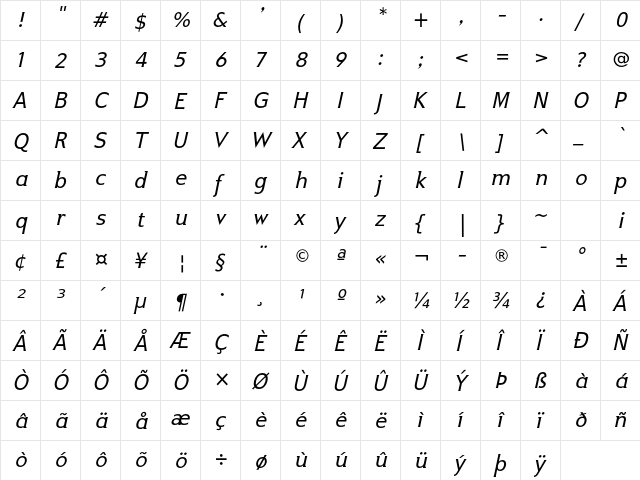
Ikarius ADF No2 Std Italic
| Foundry | Arkandis Digital Foundry. |
| Designer | HARENDAL Hirwen |
Design Context for Ikarius ADF No2 Std Typeface
Ikarius ADF No2 Std takes a measured approach to typography — its balanced proportions and neutral character make it a reliable workhorse for both digital and print work. The dynamic lean of this cut emphasises speed and emphasis in any layout.